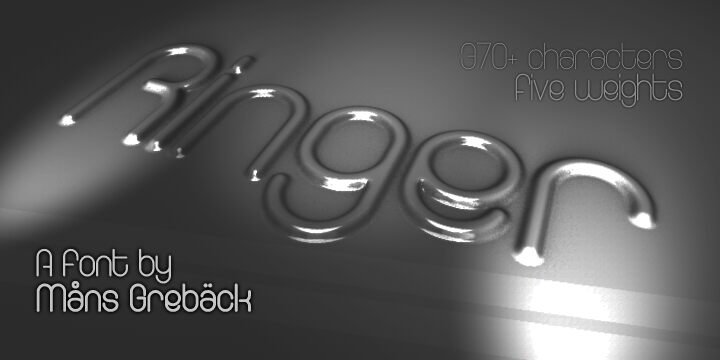
Ringer Bold by Mans Greback is a free rounded sans serif with tall, narrow letters and an almost continuous monoline flow. Its repeated arches and deep curves make the alphabet look as if it has been bent from flexible tubing. Circular forms stay open and generous beside the more compressed verticals.
Designers working for youth fashion, music, and contemporary culture will find its sleek, unconventional drawing useful. It suits album artwork, event posters, and apparel graphics because the looping structure can echo cables, neon tubing, or linear illustration. In magazine design, it can turn a cover line into a graphic thread that connects typography with photography and abstract patterns.